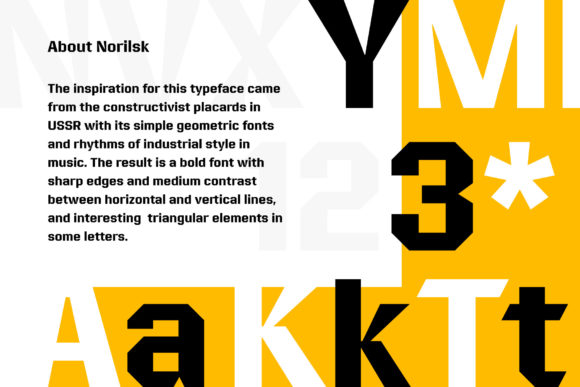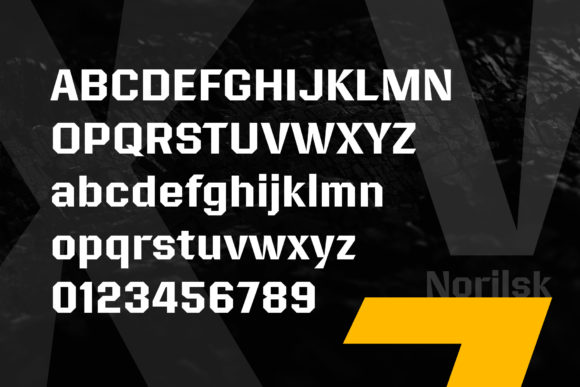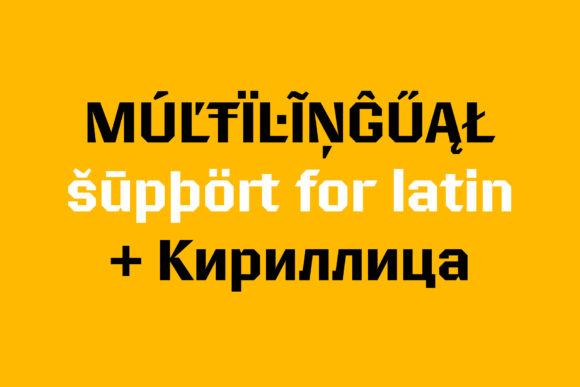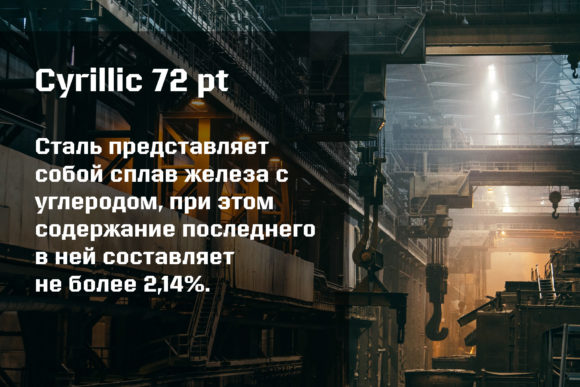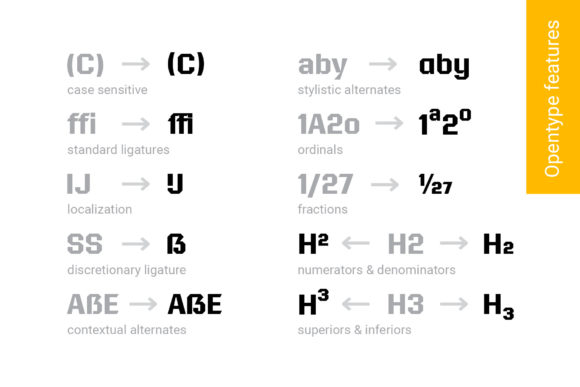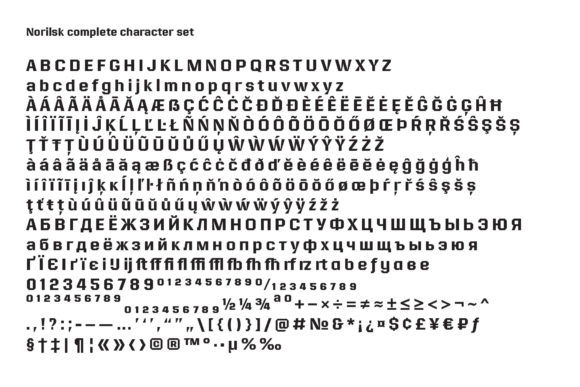
Introduction to Norilsk Font
Have you ever stared at a blank canvas, searching for the perfect font to bring your creative project to life? As a designer, we’ve all been there – pouring over typography options, trying to find the perfect balance of style and legibility. But what if I told you there’s a font that could make that process a whole lot easier?
Meet the Norilsk Font, a stunning geometric sans serif font that’s sure to elevate your designs to the next level. With its high quality, clean lines and modern feel, this font is the perfect addition to any creative project. And the best part? It’s available for free download, making it a valuable resource for designers of all levels.
Whether you’re working on a branding project or designing a website, the Norilsk Font is a versatile and reliable choice. Its transparent background and sleek design make it easy to layer and combine with other typography, giving you endless possibilities for creative expression.
Norilsk Font
- High-quality font designed for creative projects, offering a unique and stylish look.
- Features a transparent background, making it ideal for use on various backgrounds.
- Designed to be versatile and suitable for a wide range of applications, from print to digital media.
- Perfect for designers looking for a unique and creative font to elevate their designs and projects.
Honest Review: Norilsk Font
As a designer, I’m always on the lookout for high-quality design resources to enhance my creative projects. The Norilsk Font is one such gem that caught my attention. With a transparent background, it offers a clean and modern aesthetic that can elevate any design.
What works well about the Norilsk Font is its unique style, which is perfect for creating a visually striking design. The font’s bold and geometric lines make it ideal for headings and titles. I particularly like how it looks when used in a creative project that requires a bold and eye-catching typography.
- High quality: The font’s high-quality design ensures that it looks great in various resolutions and screen sizes.
However, I did encounter some limitations while using the Norilsk Font. ⚠️ While it’s a great font for headings and titles, it may not be suitable for body text due to its bold style.
Overall, I’m impressed with the Norilsk Font. It’s a great design resource that can add a touch of creativity to any project. While it may have some limitations, its unique style and high-quality design make it a valuable addition to any designer’s collection. ✨
The Norilsk Font is a high-quality, free download design resource ideal for creative projects that require a unique and stylish touch. This font features a transparent background, making it perfect for layering and combining with other design elements.
The Norilsk Font is ideal for a variety of creative projects, including logos, posters, business cards, and social media graphics. Its unique and stylish design makes it perfect for anyone looking to add a touch of sophistication and elegance to their design.